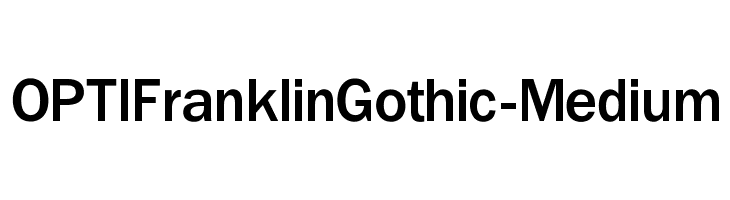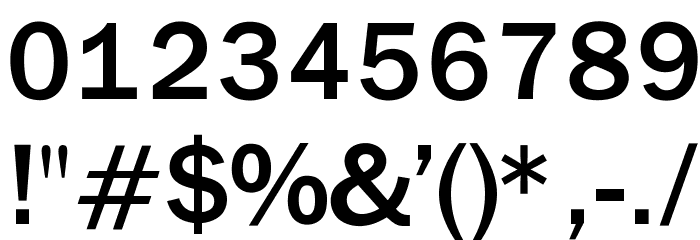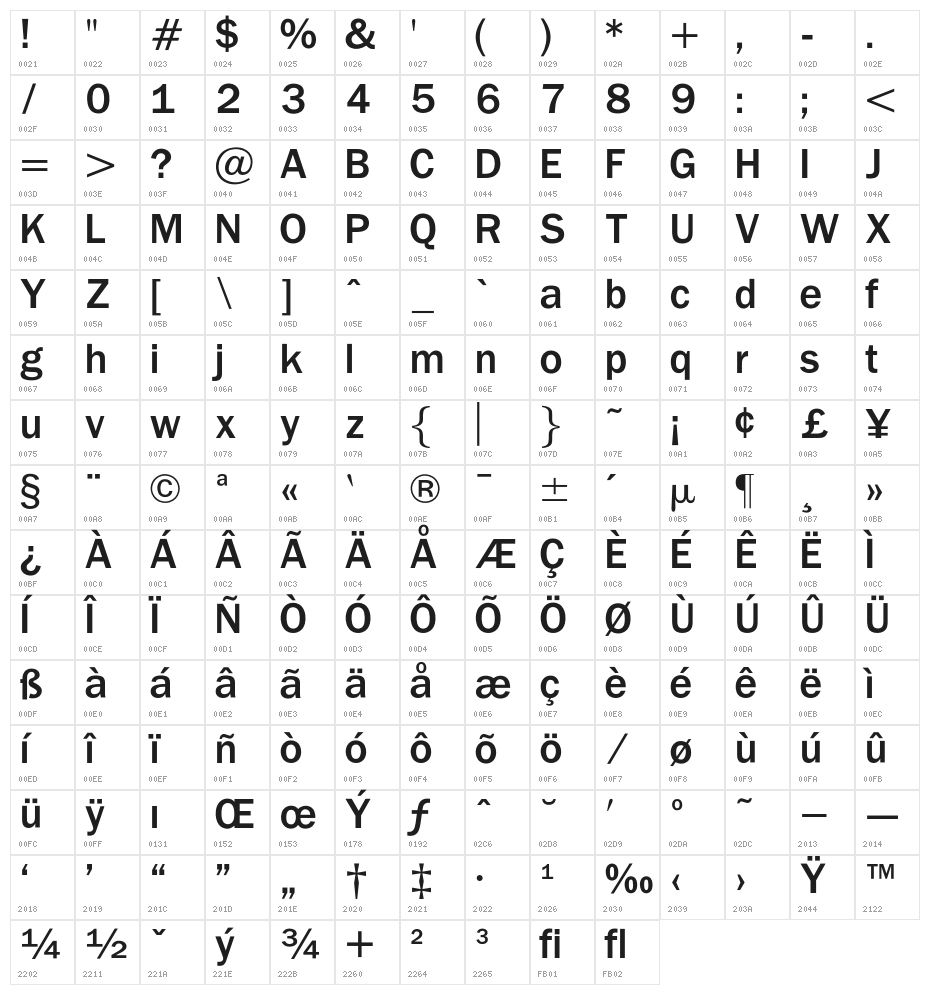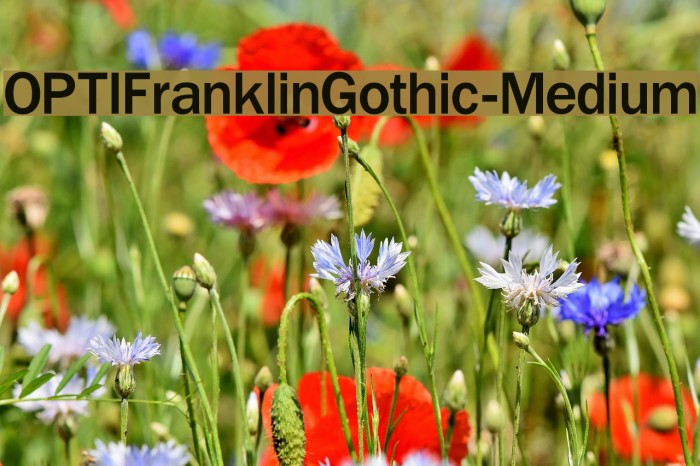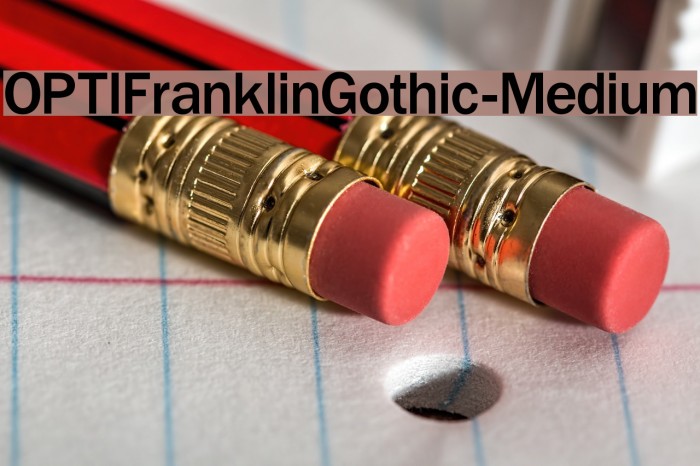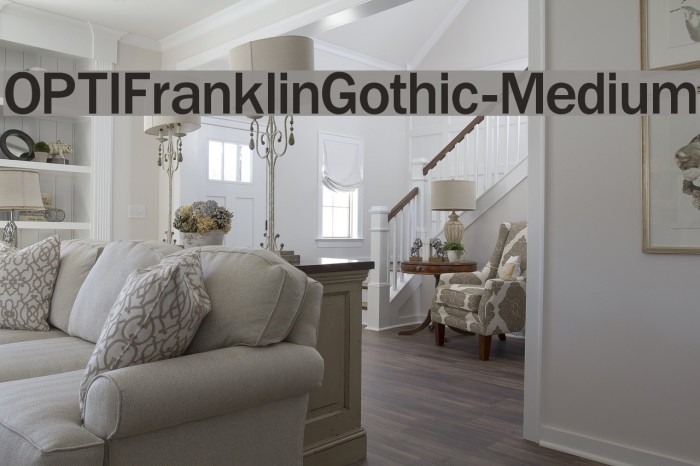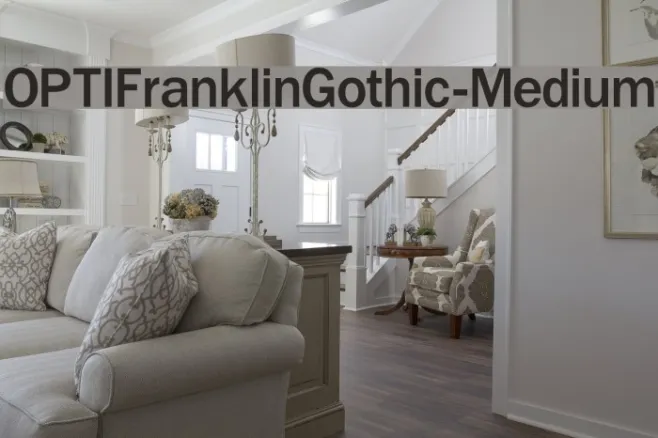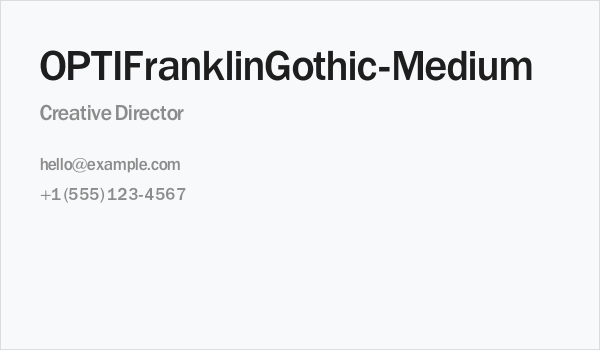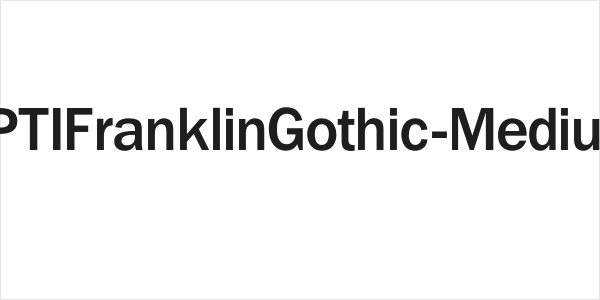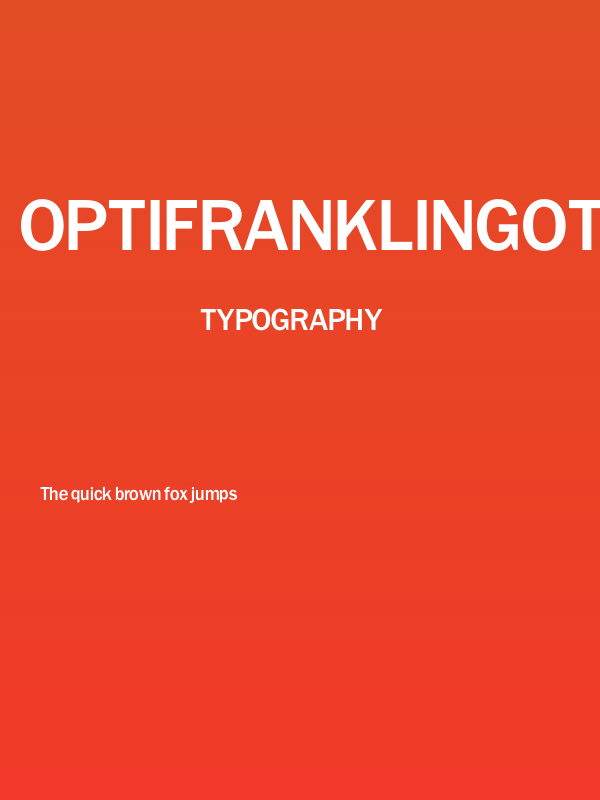
OPTIFranklinGothic-Medium Font
OPTIFranklinGothic-Medium Description
This typeface features a bold and clean design with a strong presence, characterized by its sans-serif style. The letters are evenly spaced, providing a balanced and harmonious appearance. The strokes are consistent in width, contributing to a modern and professional look. The uppercase and lowercase letters are well-proportioned, making it versatile for various applications. The numerals are clear and easy to read, while the special characters maintain the same boldness and clarity as the alphabet. This font is suitable for both digital and print media, offering a timeless and adaptable aesthetic.